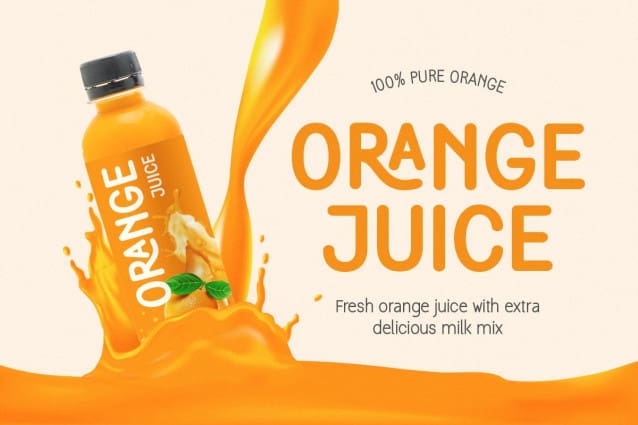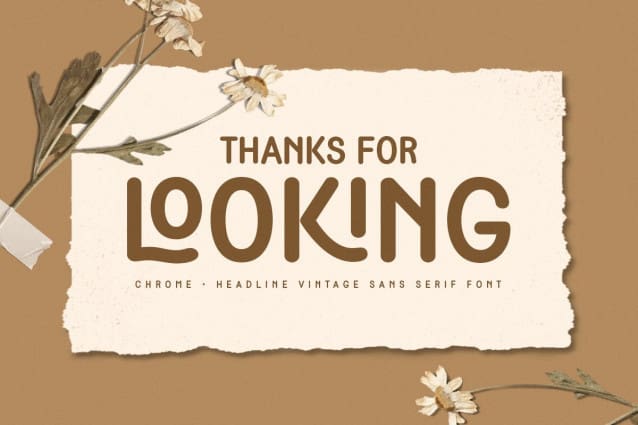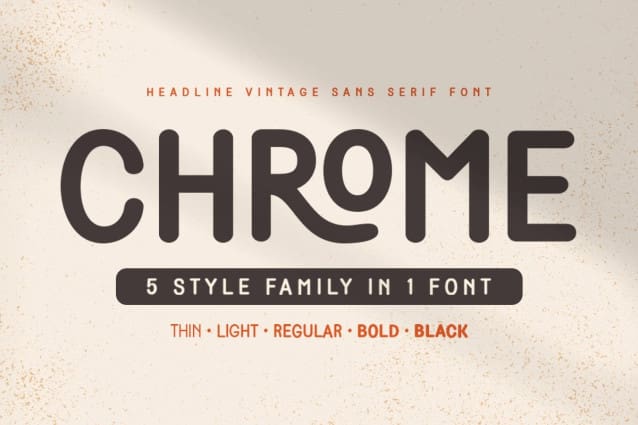
Chrome Sans Font
Chrome Sans Font is a Headline Vintage font created especially to display a retro and display style. A Vintage Serif font that we created especially to meet the needs of an elegant brand, with an additional ligature in a unique and vintage shape, adds value to your brand. It’s so nice to reach out to a designer or product owner who needs solutions to make their design look more vintage and unique.